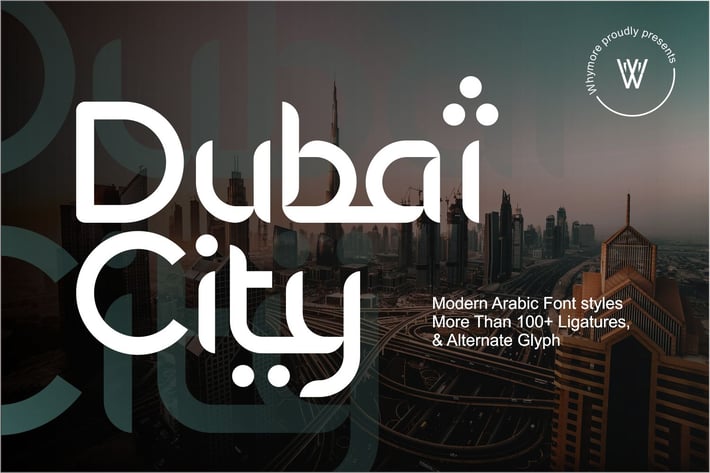
Dubai City | Arabic Font
Dubai City Font is a sans font with Arabic font nuances. This impression is caused by the many ligatures and alternative fonts that you can access. more than 100+ Glyphs you can use in this Dubai City Font.